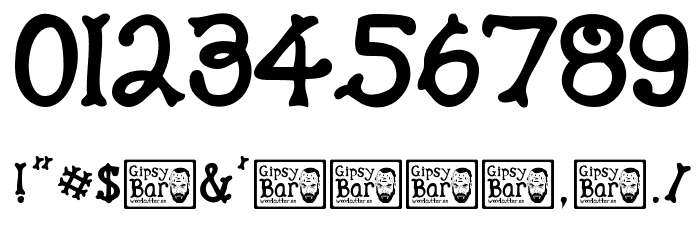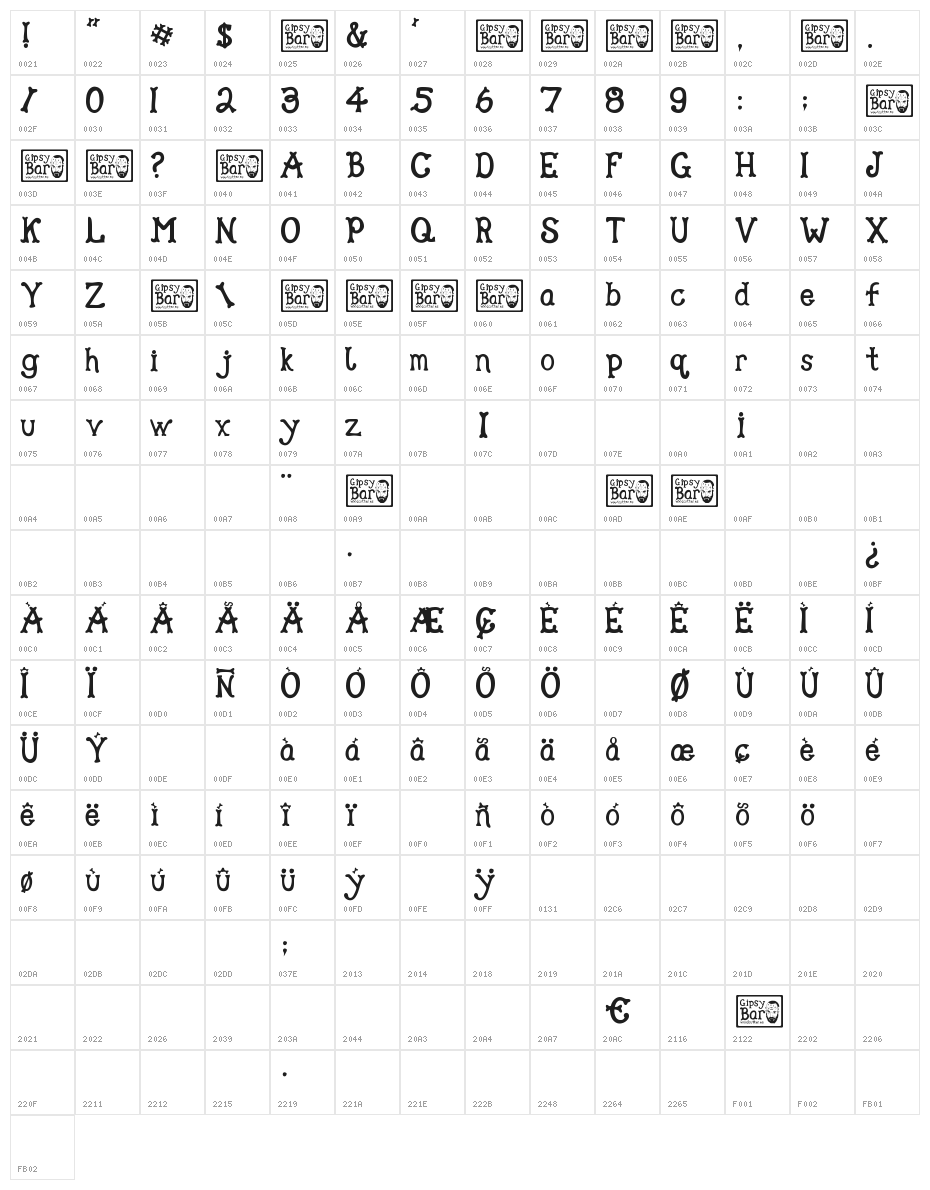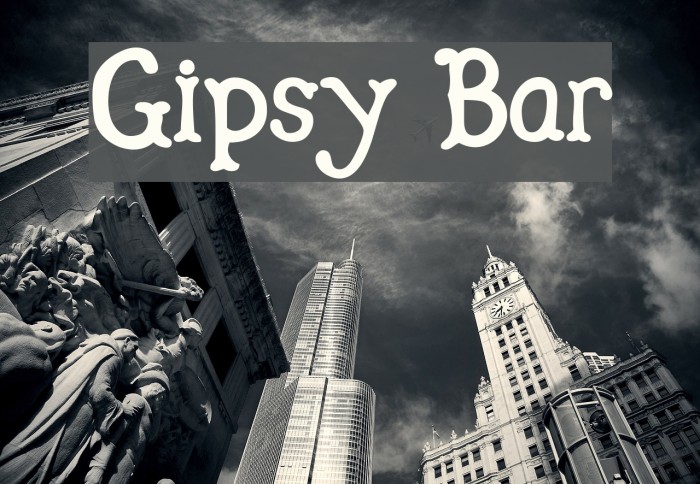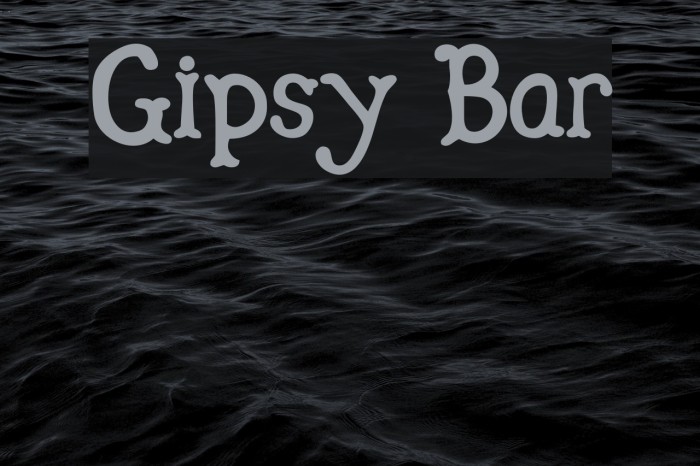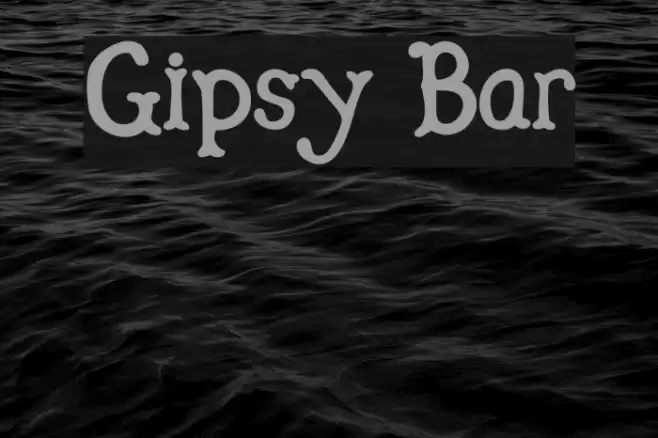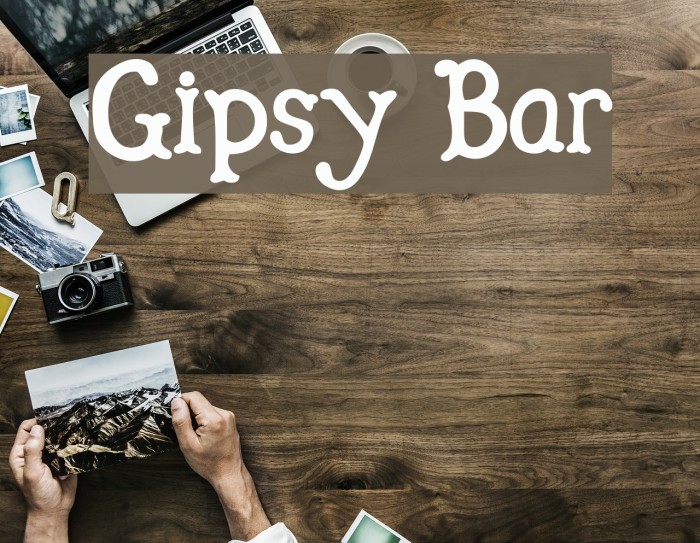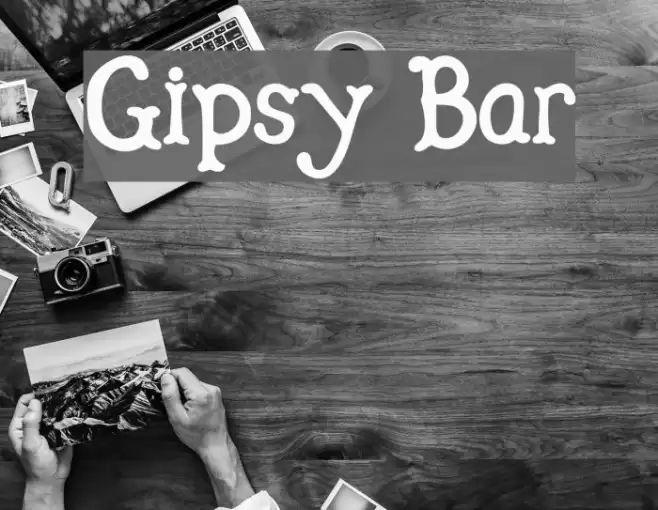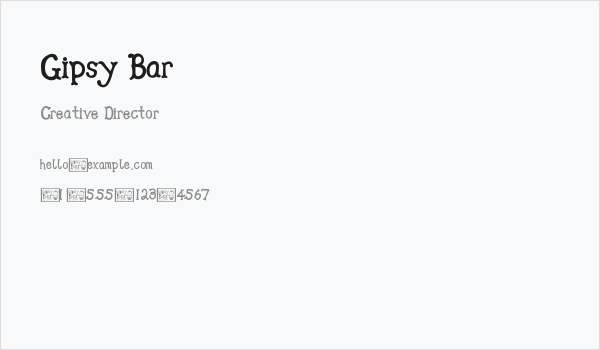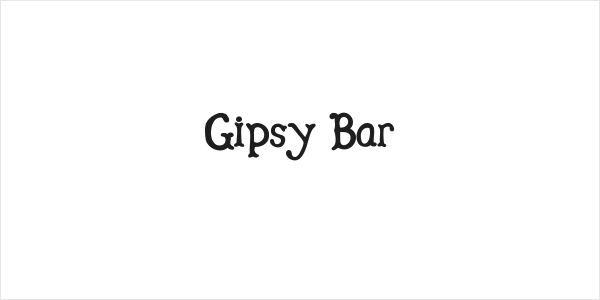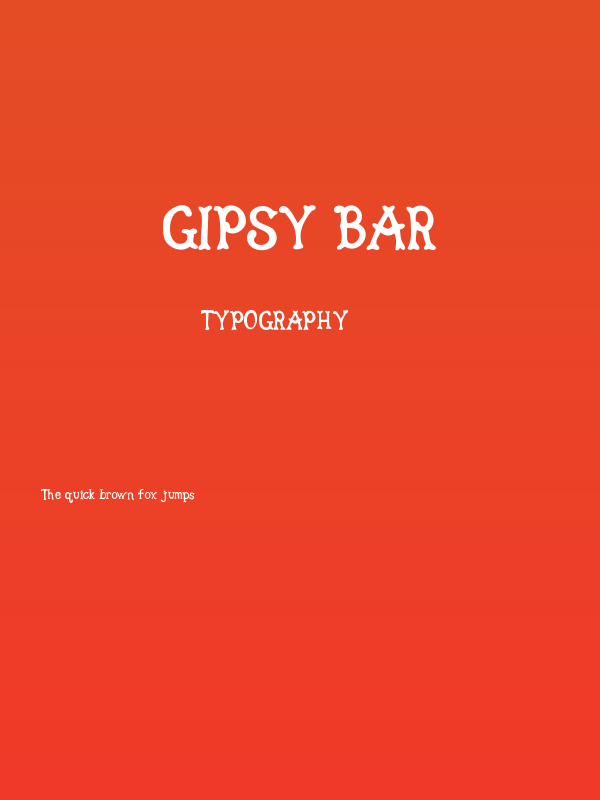
Gipsy Bar Font
Gipsy Bar Description
This font features a playful and whimsical design, characterized by its irregular and slightly wavy strokes. The letters have a hand-drawn feel, with varying thickness that adds a dynamic and lively appearance. The uppercase characters are bold and prominent, while the lowercase letters maintain a consistent style with a touch of quirkiness. Numbers and special characters follow the same playful theme, making the font suitable for creative and informal projects. The overall style is decorative and unique, perfect for adding a fun and artistic touch to any design.